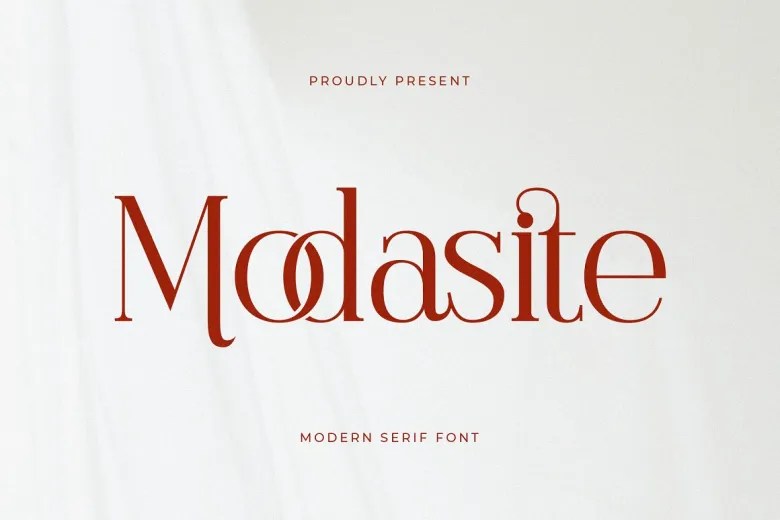
Modasite Font
Modasite is an elegant luxury serif typeface crafted to elevate a wide array of projects. Whether you’re working on logos, branding designs, homeware packaging, or product packaging, Modasite brings a touch of sophistication to your work. Its versatile application makes it ideal for mugs, posters, quotes, shopping bags, t-shirts, book covers, name cards, invitations, greeting cards, labels, photography, watermarks, and special events.
With its refined design, Modasite ensures a luxurious feel across any project that demands a stylish serif font.